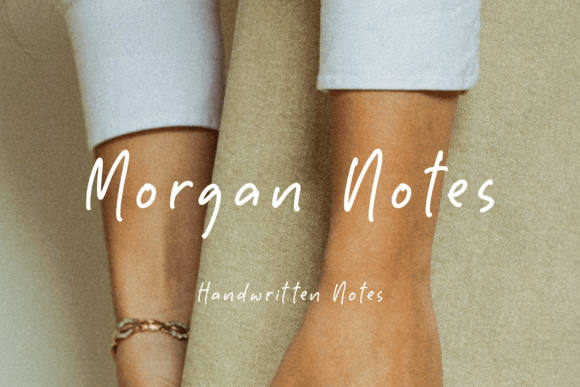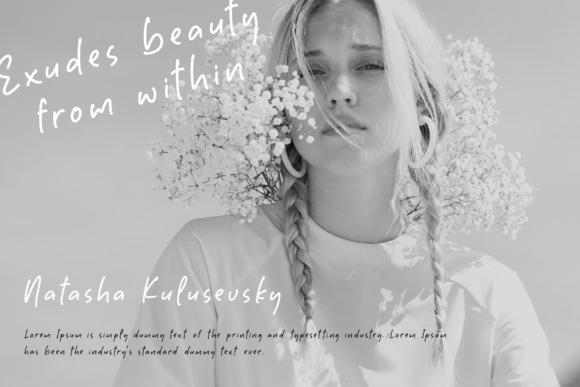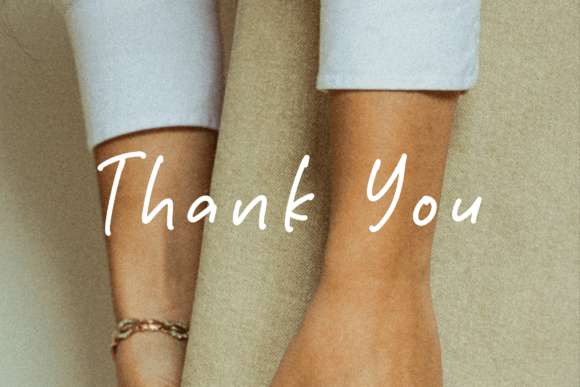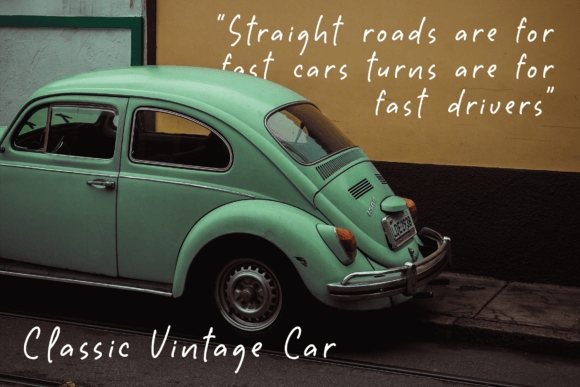
About Morgan Notes Font Download
Morgan Notes font download is a charming and elegant handwritten typeface designed to bring warmth and personality to your creative projects. Its delicate strokes and smooth flow make it ideal for a variety of design needs. Whether you are crafting wedding invitations, thank you cards, or branding materials, the Morgan Notes font download will add an authentic and handcrafted feel.
Elegant Handwritten Style
This font stands out with its graceful, handwritten appearance. The Morgan Notes font download features fluid lines and well-balanced letters that evoke a sense of sophistication and approachability. It perfectly captures the natural imperfections of handwriting while maintaining a polished look, making it suitable for both formal and casual designs.
Perfect for Special Occasions
Morgan Notesfont download is especially popular for wedding invitations and greeting cards. Its elegant curves and charming style create a romantic atmosphere that enhances the emotional impact of your projects. Beyond weddings, this font is also ideal for thank you cards, quotes, and other personal correspondence that benefits from a heartfelt touch.
Versatile for Branding and Business
This font isn’t just for personal use. Morgan Notesfont download works wonderfully in professional contexts as well. Use it for logos, business cards, and marketing materials to give your brand a distinctive handwritten style that feels genuine and inviting. It’s a fantastic choice for brands aiming for a humanized, friendly image.
Why Choose Morgan Notes Font Download?
The Morgan Notesfont download is a versatile and elegant choice for anyone wanting to add a handcrafted vibe to their work. Its balance of charm and professionalism makes it ideal for a wide range of projects. You will love how this font enhances your designs with a unique personality and timeless style.
In summary, Morgan Notesfont download offers a beautiful handwritten font that elevates any project. From wedding invitations to branding and everything in between, this font is designed to bring life and warmth to your work. Download Morgan Notes today and transform your creative ideas into stunning visual expressions with a personal, handwritten touch.